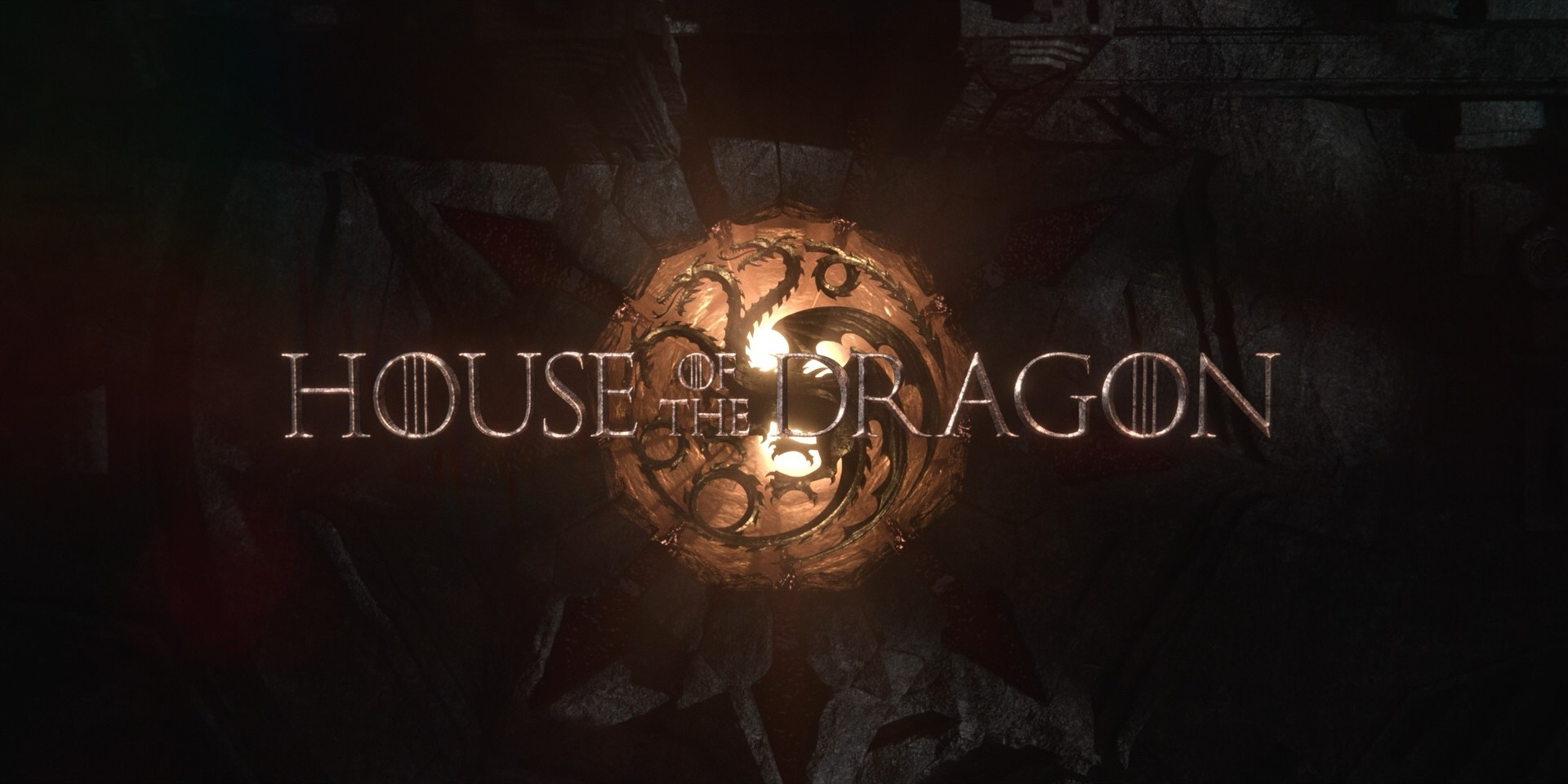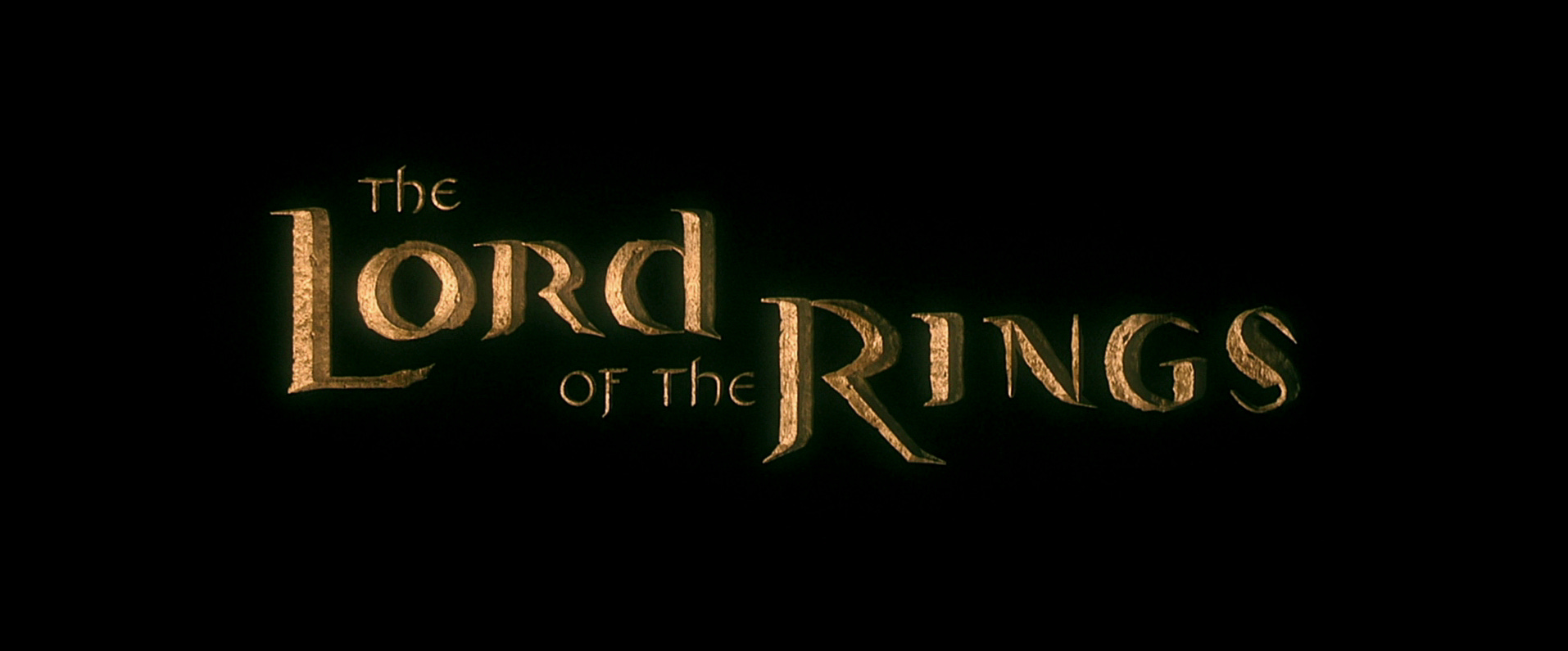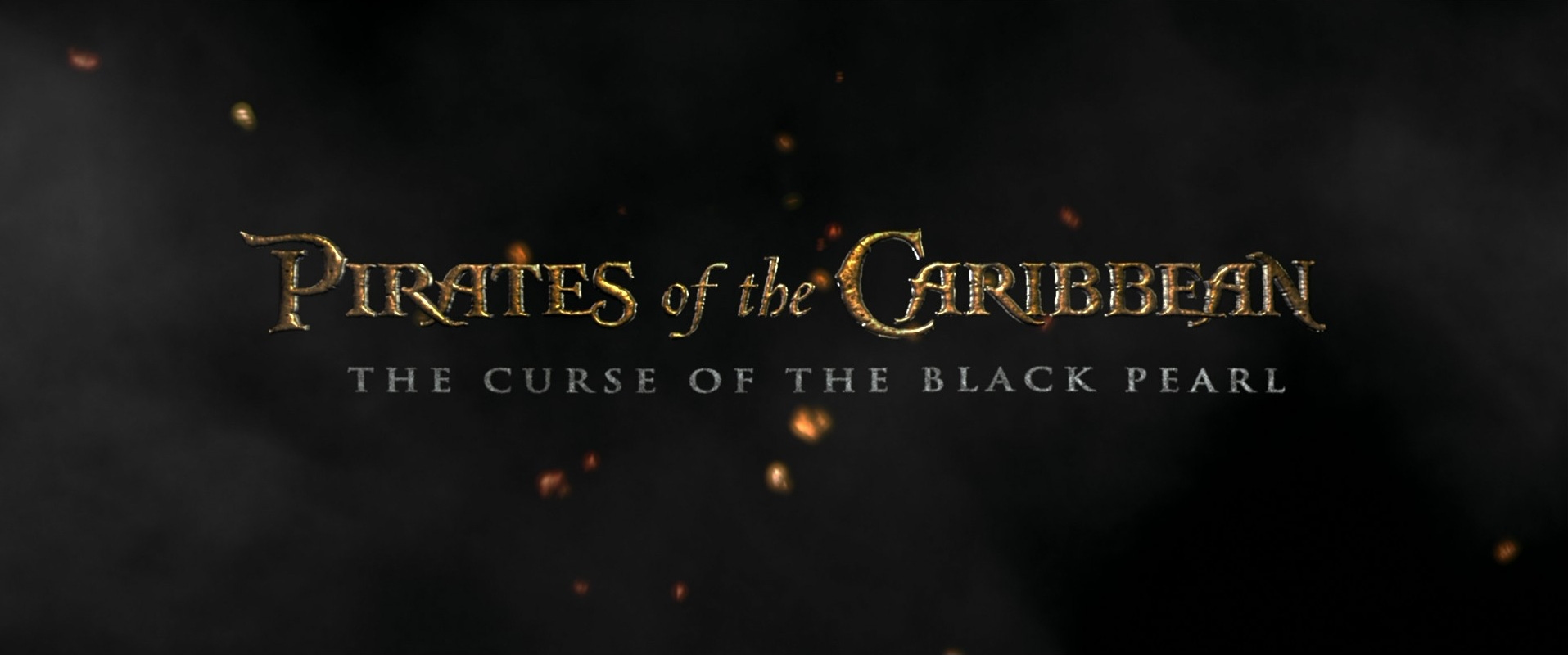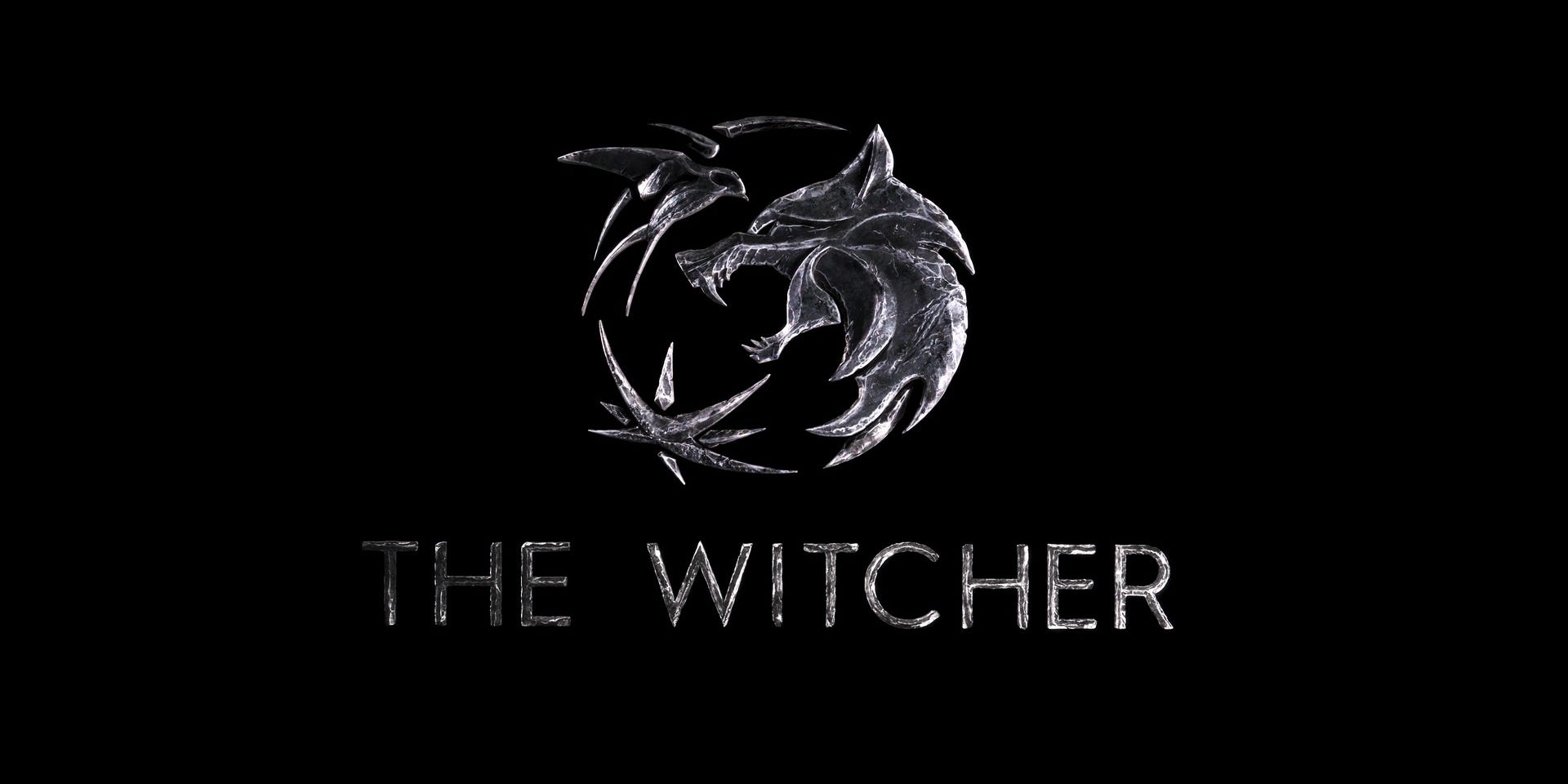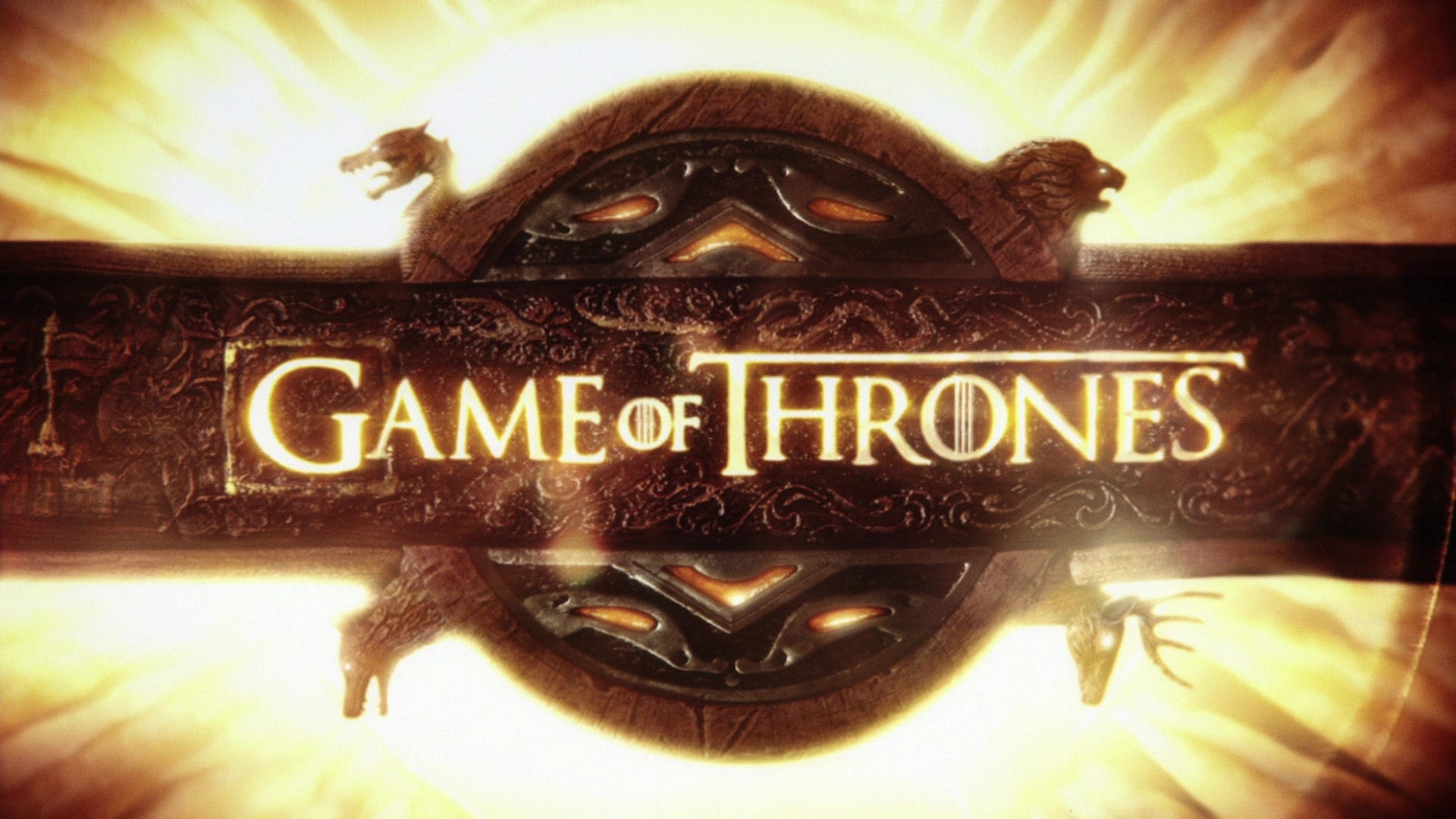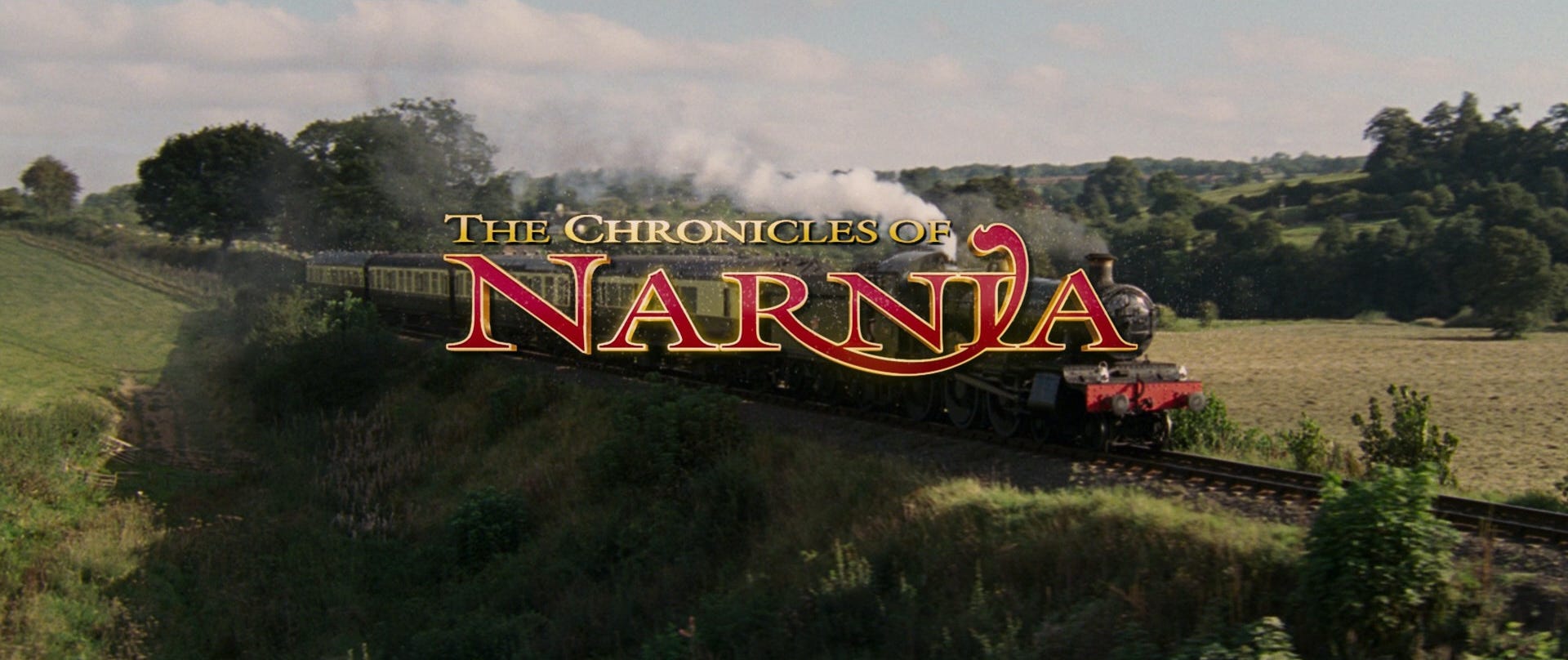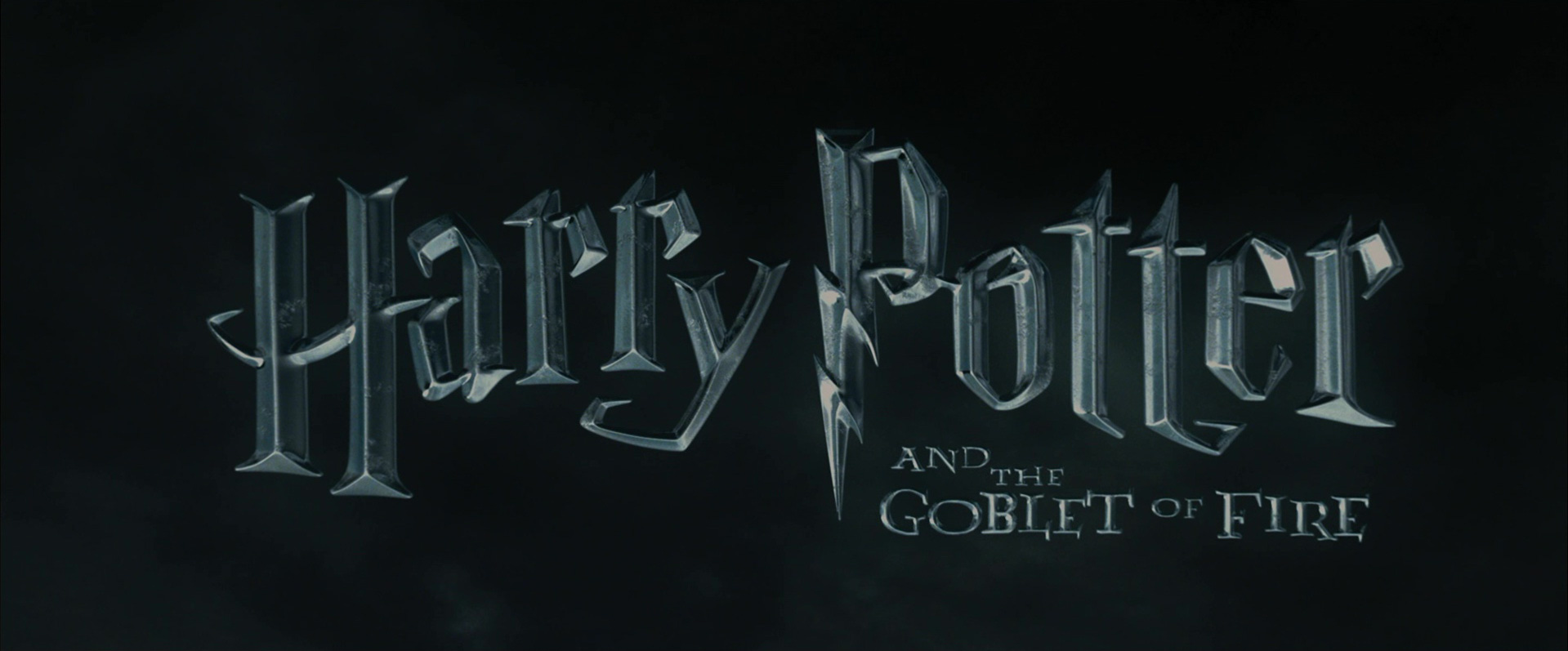
The Fantasy Genre
What was your introduction to fantasy? A book, film, television show, or video game?
An early passion for literature led me to explore other worlds as a kid. I remember devouring The Chronicles of Narnia and Harry Potter. Well into adulthood, I remain utterly infatuated by quests, reluctant heroes, lost heirs, magical schools… Oh, and don’t forget dragons and elves.
Fantasy is a subgenre of speculative fiction, which encompasses “a type of story or literature that is set in a world that is different from the one we live in, or that deals with magical or imagined future events.”1 On a deeper level, fantastical tales exist in mythical places with its own unique logical and physical laws. They are commonly influenced by traditional myths and historical accounts—especially those from the Medieval period! While visiting, you might become acquainted with centaurs, griffins, werewolves, unicorns, goblins, vampires, sprites, mermaids, and a whole host of other mythical creatures.
There are also many different types of fantasy. You can choose from dystopian, dark, high, low, historical, urban, sci-fi, etc. One of my all-time favorites is magical realism.
Fantasy on the Screen
Beyond literature, fantasy has continued to shape and influence the entertainment industry. There are countless films and television shows that make the impossible possible. When you watch them, you can’t help but feel transfixed by the on-screen magic.
Here are some examples of immersive visual experiences:
FILMS
The Lord of the Rings (2001-2003)
The Hobbit (2012-2014)
Harry Potter (2001-2011)
Pirates of the Caribbean (2003-2017)
Labyrinth (1986)
The Princess Bride (1987)
The Mummy (1999)
The Chronicles of Narnia: The Lion, The Witch, and The Wardrobe (2005)
Pan’s Labyrinth (2006)
TV SHOWS
Game of Thrones (2011-2019)
The Vampire Diaries (2009-2017)
The Originals (2013-2018)
Outlander (2014- )
The Witcher (2019- )
The Wheel of Time (2021- )
Shadow and Bone (2021-2023)
House of the Dragon (2022- )
The Lord of the Rings: The Rings of Power (2022- )
The Sandman (2022- )
One look and you’re instantly transported. These captivating opening sequences serve as invitations to explore previously uncharted fantastical worlds. They are complex, three-dimensional designs that took days, if not weeks, to conceptualize, draft, and fully realize.
Fonts
Forever inspired by the fantasy tradition, I’ve gathered a list of typefaces that can infuse your epic creative works with a little magic.
IM FELL English
Carta Marina
Tiller
Priori Acute
Saber
Mason Serif
Bradley DJR
Rotunda Veneta
Blonde Fraktur
P22 Aragon
What are you designing next? Book covers, chapter headers, logos, stamps, stationery, presentations… The possibilities are endless.